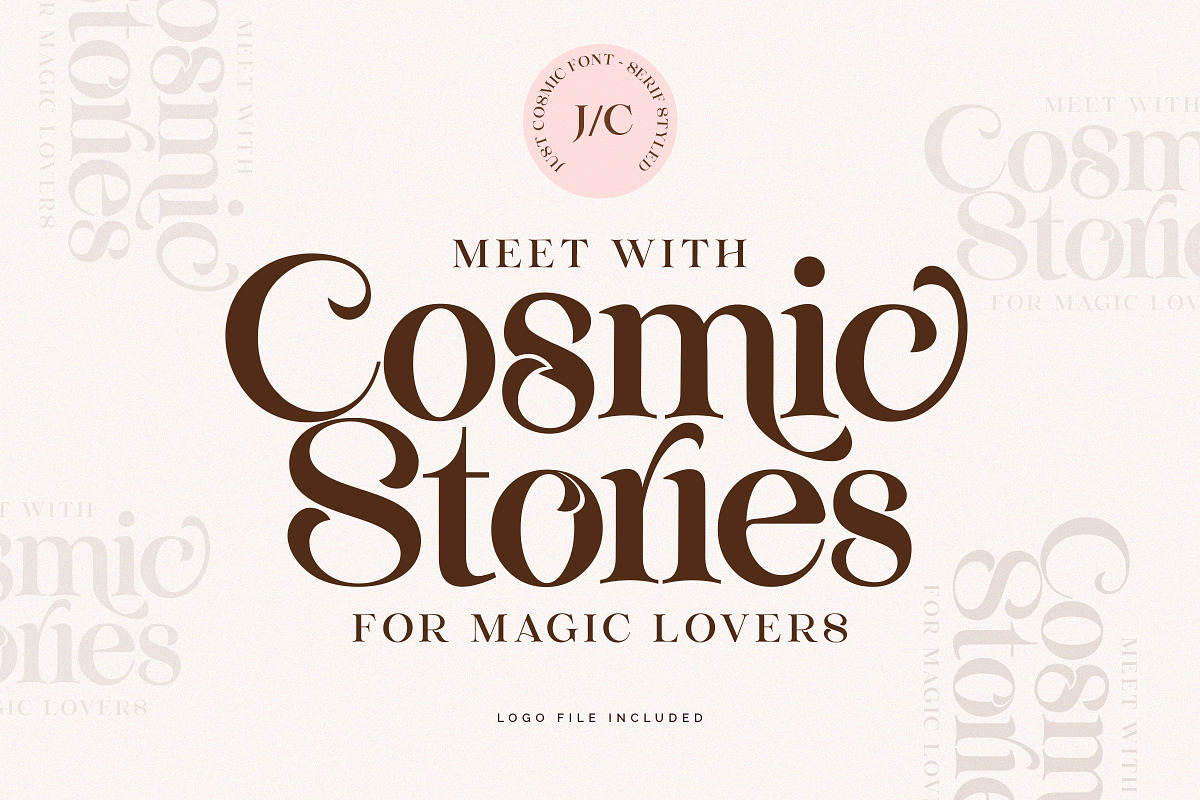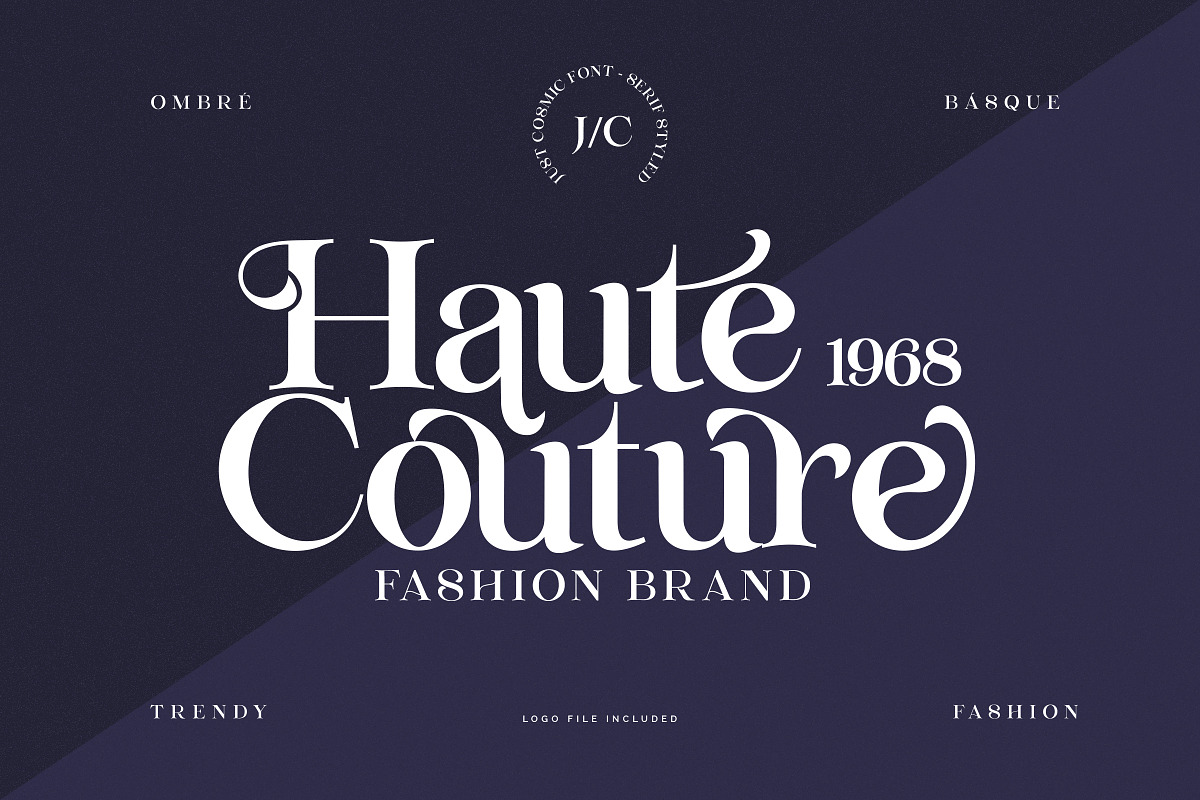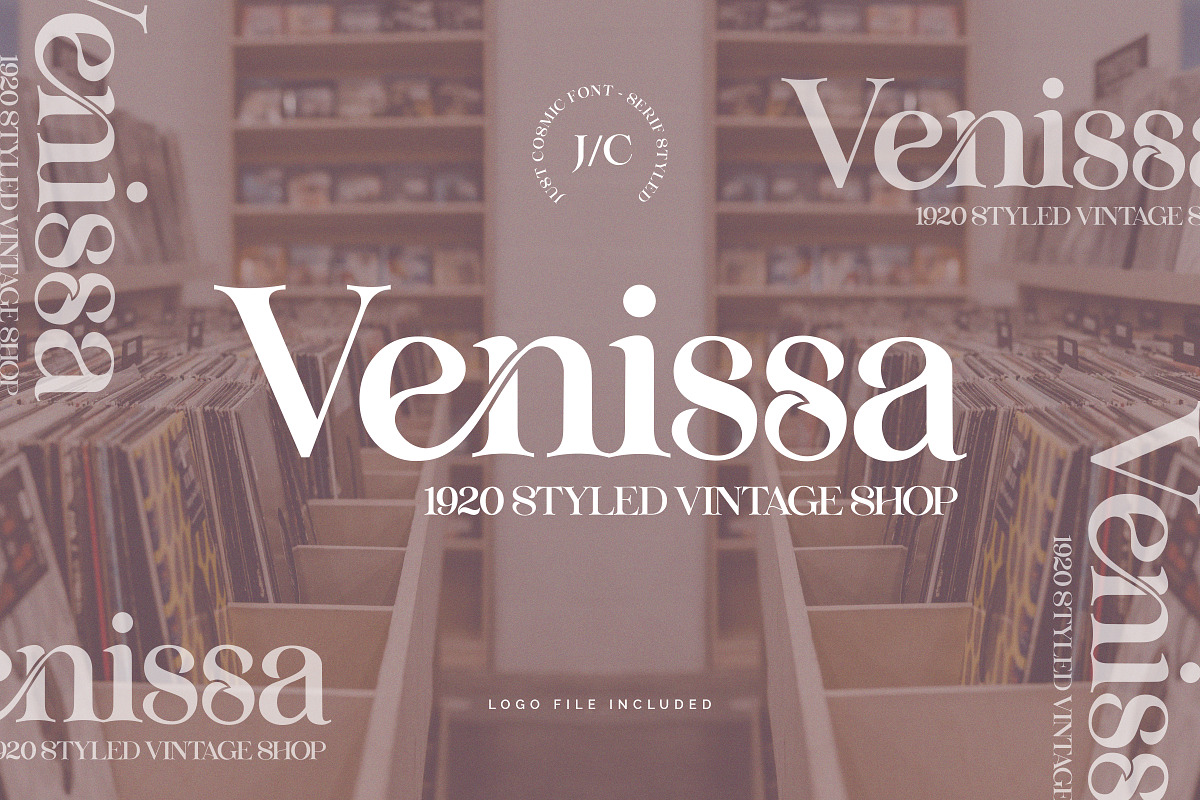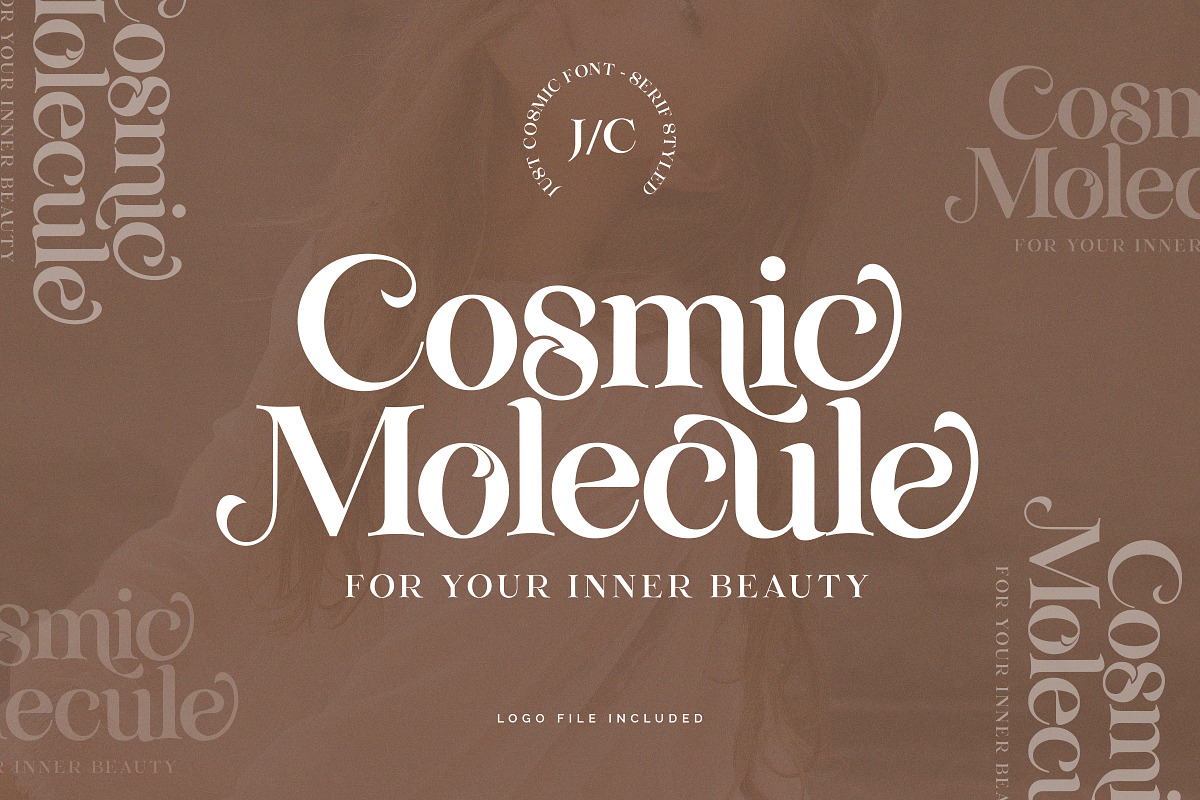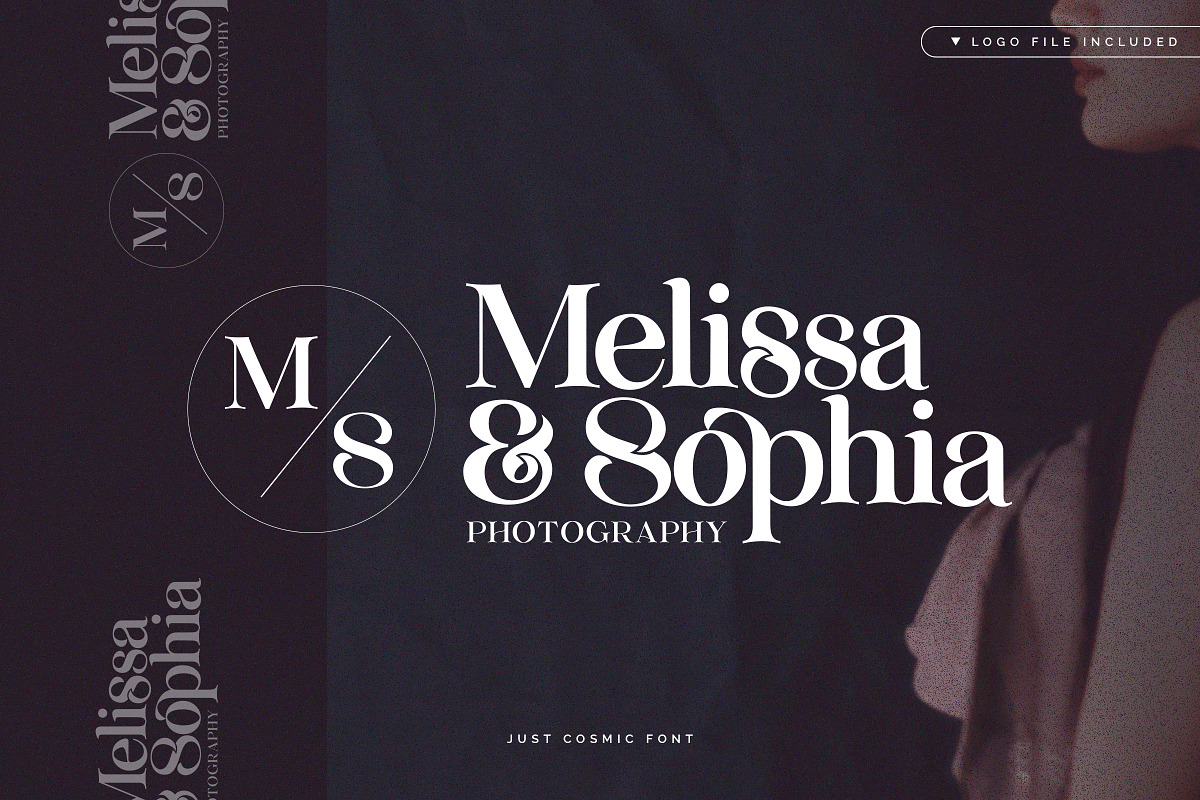
Just Comic is a magical modern vintage font will stylistic alternates and beautiful cutout ligatures. It is magical in every way. With beautiful stylistic alternates and ligatures, the font will be your best choice for both Text type and Display Type. It is designed to fill the text gaps between serif text lines.